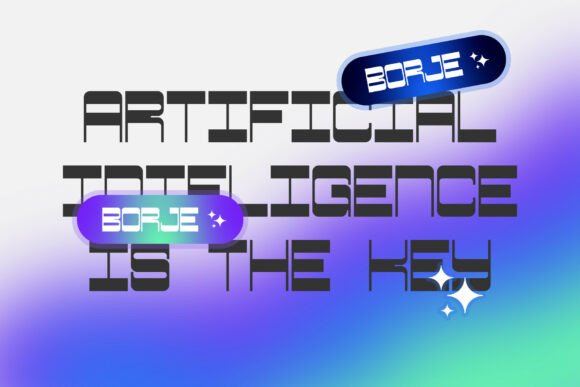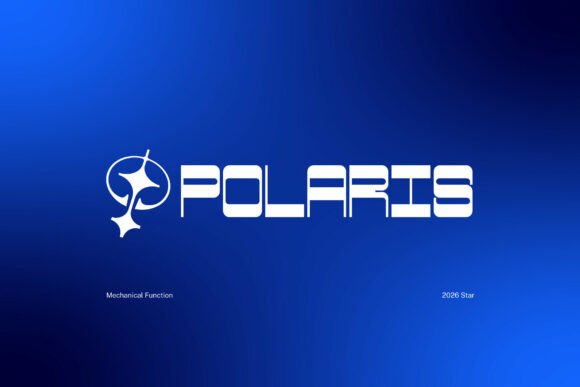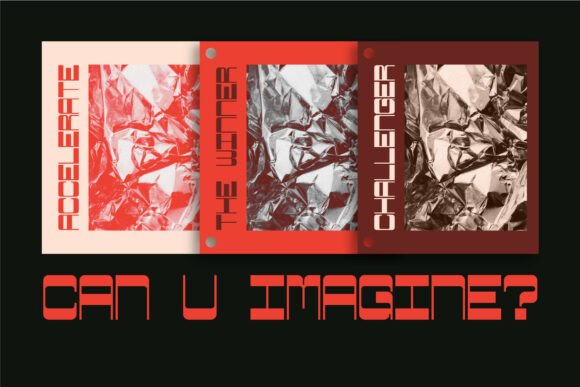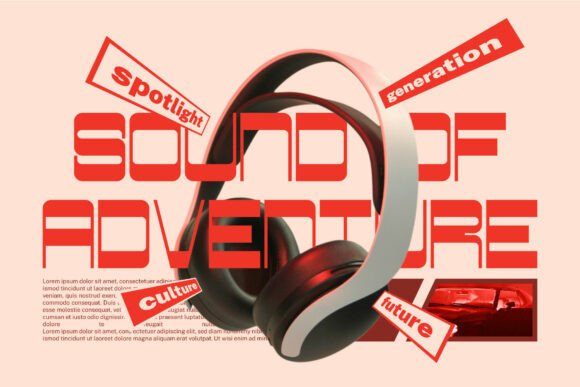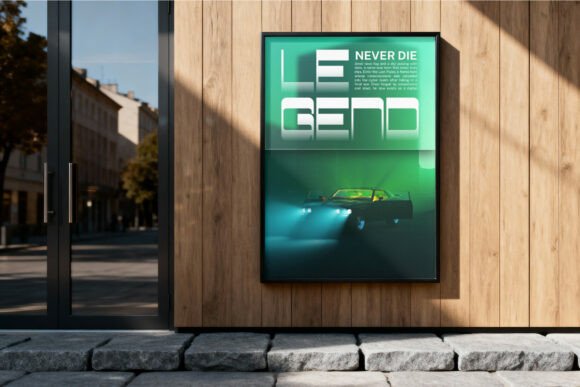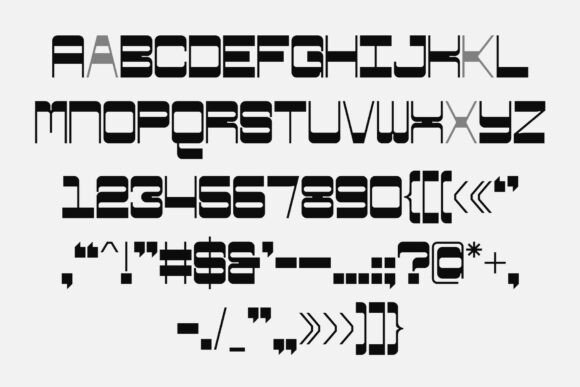
The Future of Typography: Introducing the Borje Font
Have you ever stared at a blank canvas, trying to bring a concept to life, only to be overwhelmed by the endless possibilities? We’ve all been there. It’s moments like these that remind us of the importance of the right tools in sparking creativity. For designers, a well-chosen font can be the key to unlocking a project’s true potential.
Enter the Borje Font, a futuristic experimental display font designed to transport your designs to new dimensions. With its bold geometric shapes and modular structure, this font is perfect for designers seeking a strong and distinctive look. Whether you’re working on branding, posters, gaming designs, or digital content, the Borje Font will elevate your work with a modern futuristic style, setting you apart from the rest.
Borje Font Key Features
- Font Family: Borje is a sans-serif font family designed by Hansjörg Plasser.
- Unique Characteristics: Borje features a distinctive geometric design with a focus on legibility and modern aesthetic.
- Font Styles: Includes multiple font styles, including light, regular, bold, and italic.
Borje Font Review
As a designer, I was excited to dive into the Borje font and see what it has to offer. Overall, I have mixed feelings about this font, but let’s break it down.
- The Borje font has a unique and modern aesthetic, perfect for contemporary designs.
- It’s highly legible, making it a great choice for body text and smaller font sizes.
- The font is highly customizable, allowing users to adjust the weight, width, and other attributes to suit their needs.
- The Borje font may be too bold or overpowering for certain designs, especially those that require a more subtle look.
- The font lacks a clear distinction between regular and italic styles, which can make it difficult to use in certain contexts.
- The Borje font may not be the best choice for serif or traditional designs, as it has a distinctly modern feel.
Overall, the Borje font is a solid choice for modern and contemporary designs. While it has some limitations, its unique aesthetic and high legibility make it a great option for designers looking to add some visual interest to their projects. However, it may not be the best fit for every design style or purpose.
Tips for Getting the Most Out of Borje Font
Use Borje Font for titles and headings to add a touch of sophistication.
Combine Borje Font with other fonts for a unique and creative look.
Borje Font is ideal for:
– Creative projects and presentations
– Editorial and publishing content
– Digital and print media
Alternatives to Borje Font
Monserrat is a modern sans-serif font designed by Julieta Ulanovsky. It’s a versatile font suitable for various projects, including digital and print media. Montserrat is ideal for use in headings, titles, and body text. It’s a great alternative to Borje Font as it offers a similar geometric and clean design, but with a more elegant and refined feel.
Lato is a sans-serif font designed by Łukasz Dziedzic. It’s a highly readable font suitable for use in digital media, including websites and mobile applications. Lato is a good alternative to Borje Font as it offers a similar modern and clean design, but with a more friendly and approachable feel. It’s ideal for use in body text and headings.
Open Sans is a modern sans-serif font designed by Steve Matteson. It’s a highly legible font suitable for use in digital media, including websites and mobile applications. Open Sans is a good alternative to Borje Font as it offers a similar clean and modern design, but with a more neutral and professional feel. It’s ideal for use in body text and headings.